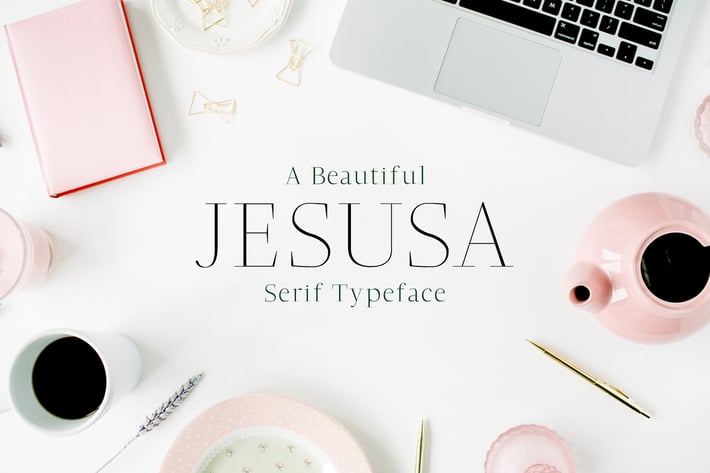
Jesusa Serif Font Family Pack
Jesusa Serif Typeface is a simple serif font family, which contains 2 weights and It features unique and modern serif look and feel. Perfect for gorgeous logos, titles, web layouts and branding. It looks gorgeous in all caps with a wide-set spacing if you want to try a classy look, or beautiful on its own in capital and lowercase letters for something completely timeless.
Included Features:
- Font Weight: Regular and Light
Jesusa Font Features:
- Uppercase Multilingual Letters
- Lowercase Multilingual Letters
- Non English Characters ( Latin Supplement + Latin Extended A)